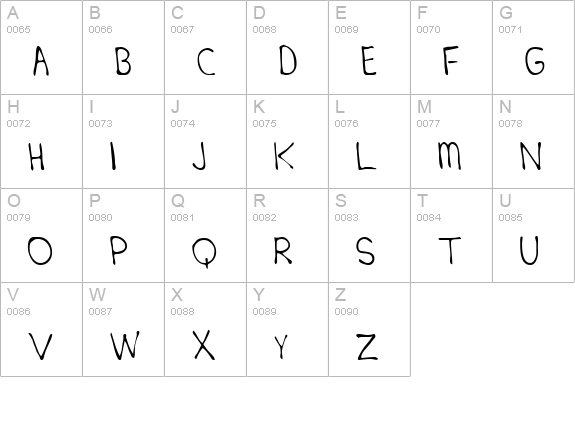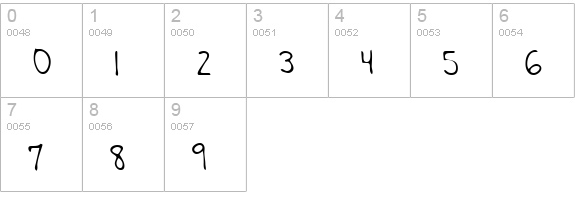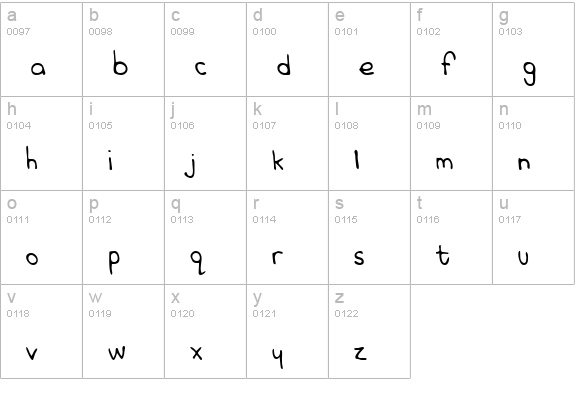
RobinsHand Regular Font Details
RobinsHand Regular is the standard, neutral variant in the RobinsHand typeface family \xE2\x80\x94 well suited to general body text, paragraphs, and standard typographic work.
RobinsHand Regular font is a charming and versatile typeface that embodies elegance and creativity. With its unique hand-drawn style, this font exudes a sense of whimsy and sophistication that is perfect for a wide range of design projects. Whether you're creating invitations, greeting cards, or branding materials, RobinsHand Regular will add a touch of personality and flair to your work. What's even better is that RobinsHand Regular font is available for free download at FontsMarket.com. This means you can easily access this beautiful font and use it in your projects without any cost. Don't miss out on the opportunity to enhance your designs with the delightful RobinsHand Regular font - download it today and let your creativity shine!